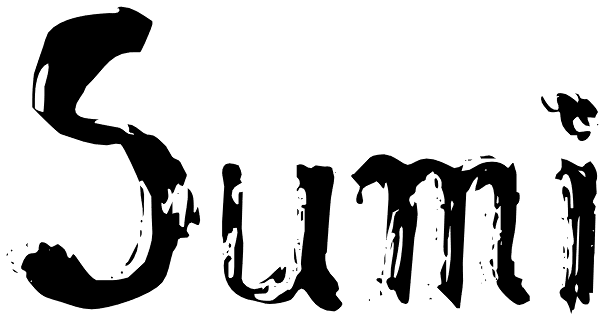
Sumi
Sumi is an inked Asian brush font. Nice Japanese calligraphy with a consistent yet distressed look in ink! Sumi is extended, containing West European diacritics & ligatures, making it suitable for multilingual environments & publications.